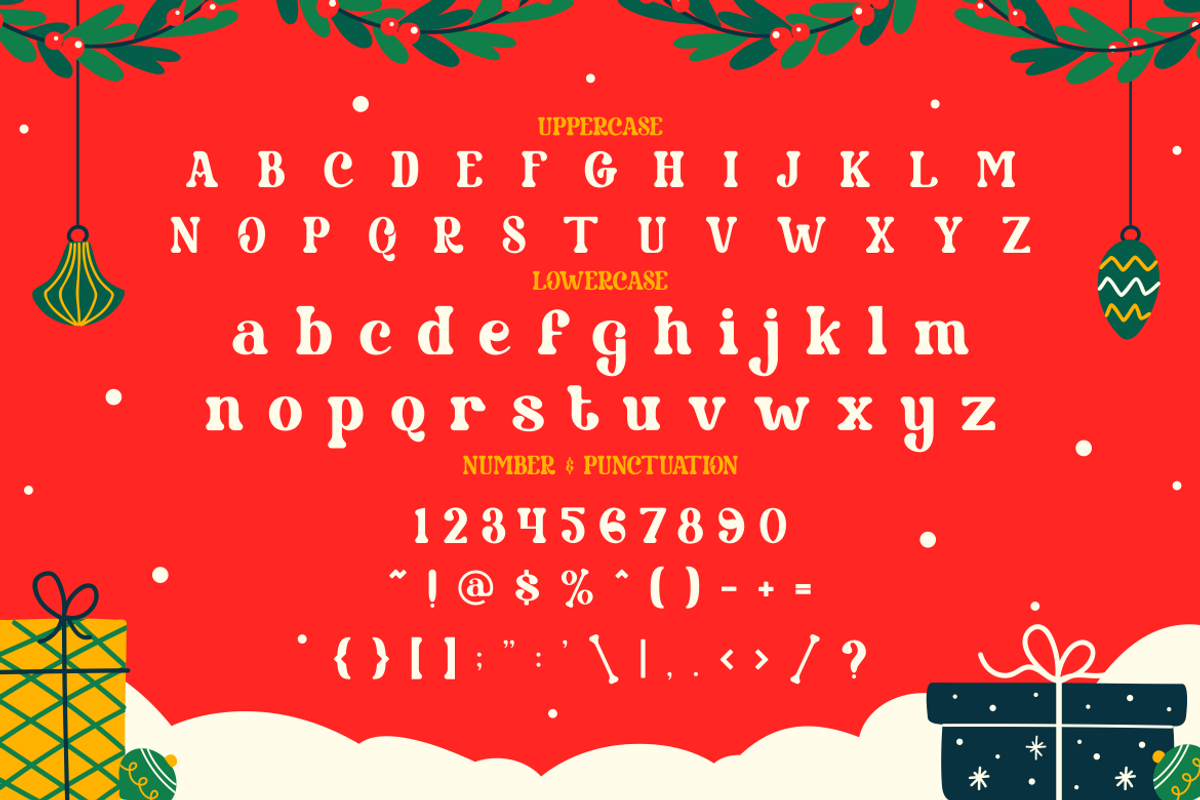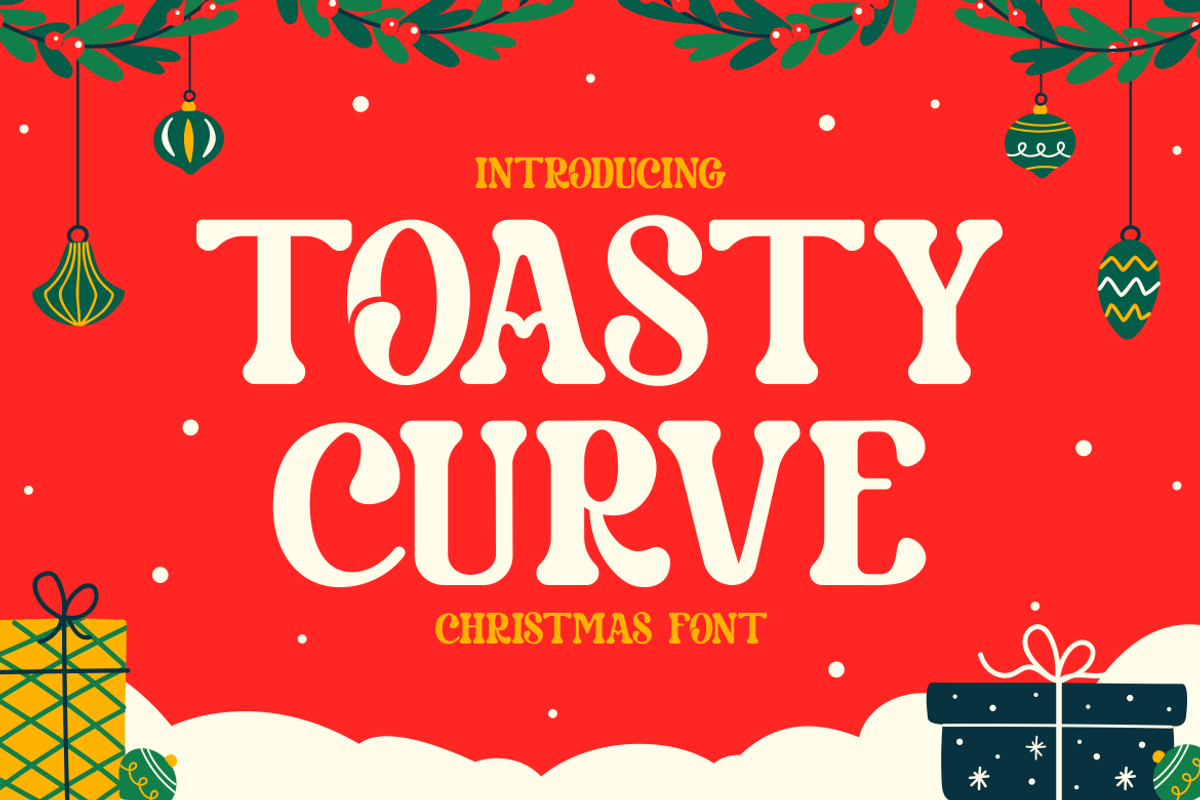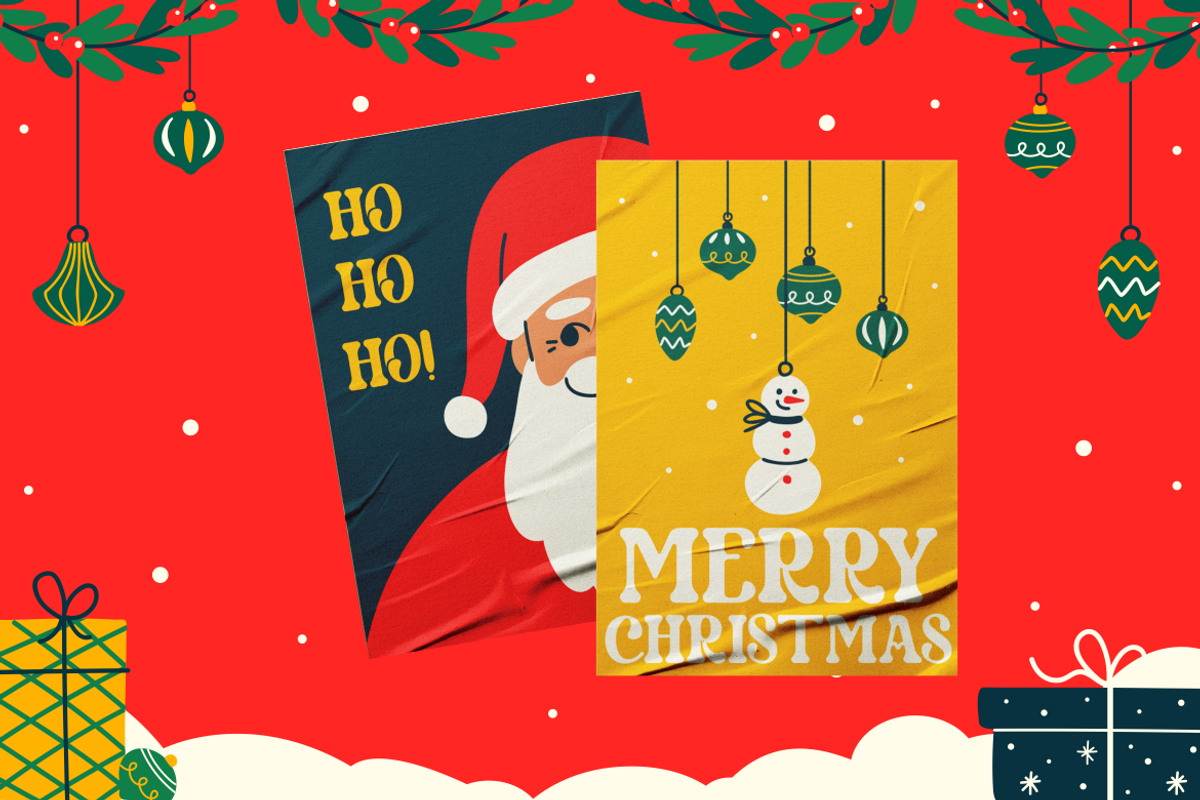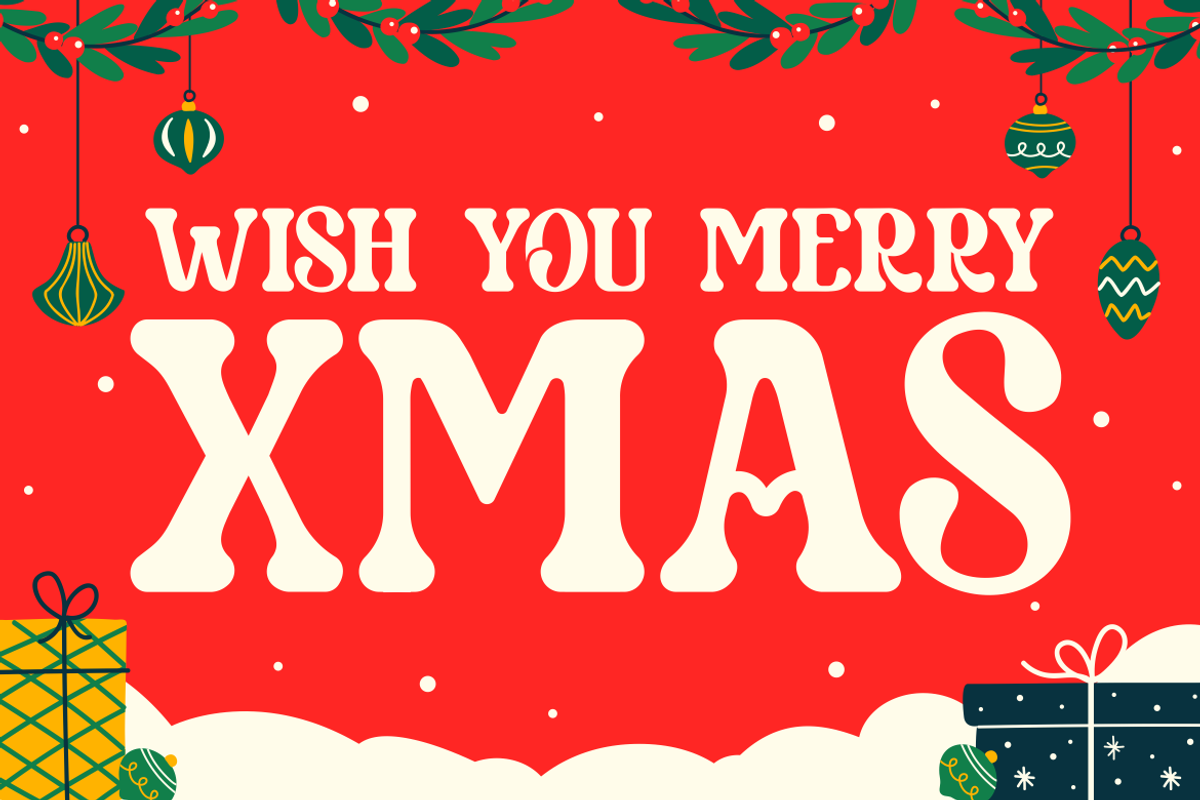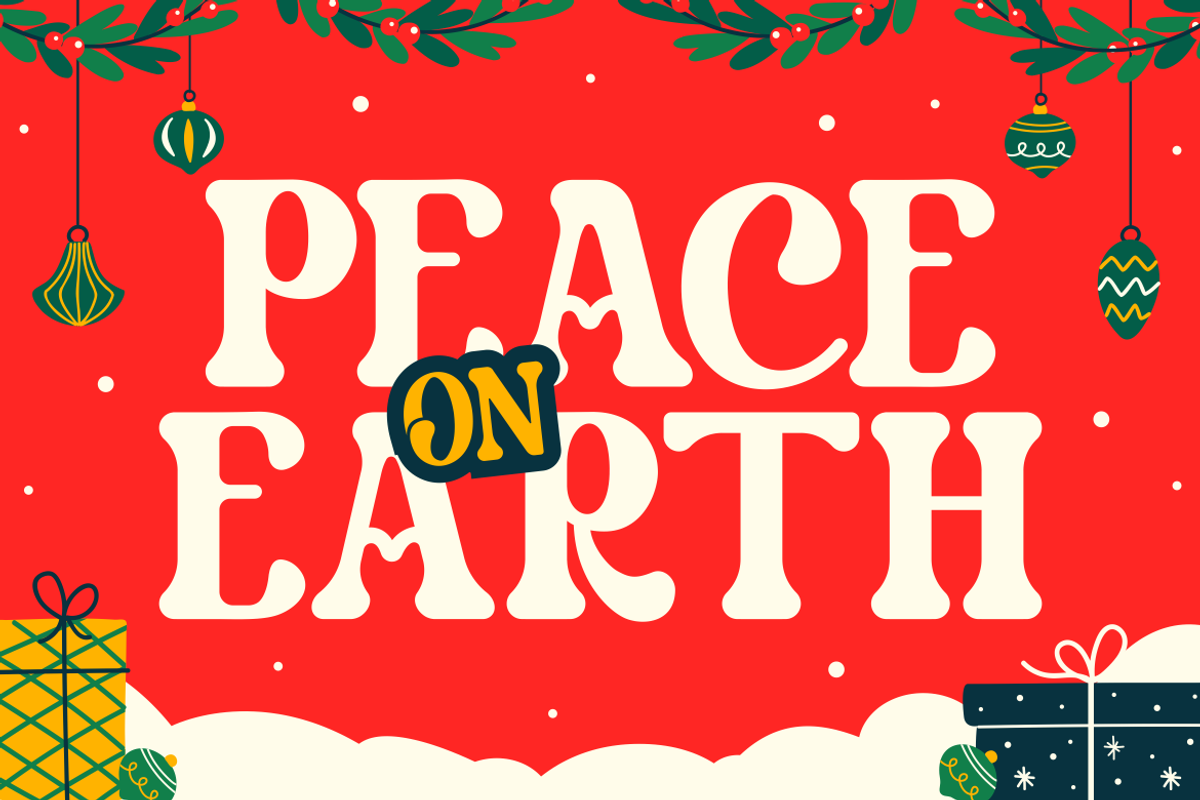
Toasty Curve - Christmas Font
Toasty Curve is a festive serif display font that radiates warmth, nostalgia, and seasonal cheer. Each letterform is designed with plump, rounded terminals and playful, slightly exaggerated curves. The thick strokes and soft edges give it a cozy, handmade feel that pairs perfectly with Christmas-themed visuals. Whether it’s uppercase or lowercase, the font maintains great readability while still feeling decorative and joyful. You’ll also find it packed with numbers, punctuation, and cheerful styling suited for various formats.
This font is perfect for Christmas cards, winter packaging, holiday invites, branding for seasonal promotions, and New Year campaigns. The character design blends vintage charm with contemporary elegance, making it versatile for both personal and commercial projects. Toasty Curve works well on posters, stickers, gift tags, product labels, and warm holiday greetings. It sets a friendly tone while keeping your message bold and clear—ideal for adding a festive spark to your holiday designs.